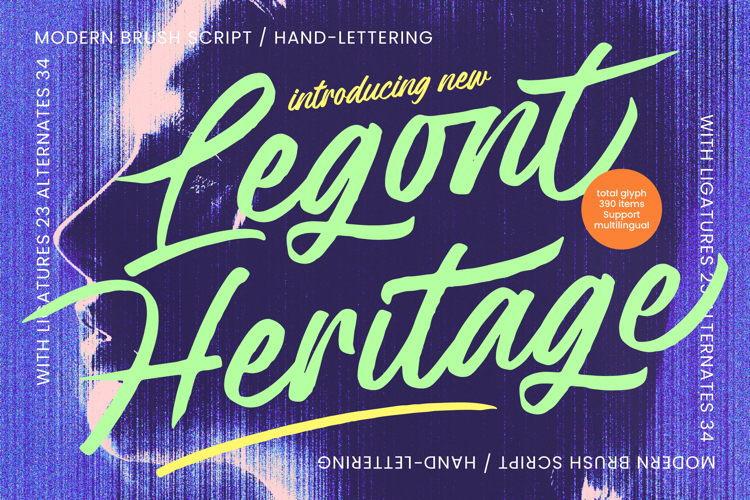
Legont Heritage - Modern Brush Script
Elevate your creative vision with a typeface that embodies raw energy and sophisticated craftsmanship. Legont Heritage - Modern Brush Script is the premier choice for designers seeking an authentic, hand-lettered aesthetic that resonates with power. This font features bold brush strokes and a dynamic flow that captures the essence of contemporary artistry. By blending organic textures with a modern script structure, it delivers a high-impact visual experience that commands attention and adds a , human touch to any digital or print canvas.
Unlock unparalleled creative flexibility with a robust set of typographic features designed for professional use. Boasting a comprehensive library of 390 glyphs, Legont Heritage - Modern Brush Script offers an impressive array of 23 ligatures and 34 alternates. These custom options allow for natural-looking variations and seamless character connections, ensuring your typography feels unique and tailored. With its extensive multilingual support, Legont Heritage - Modern Brush Script adapts seamlessly across global markets, making it incredibly versatile for international projects.